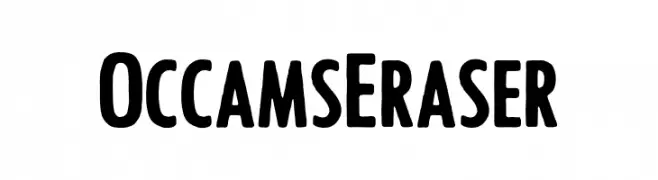
( Fonts by Casady & Greene )
A bold, rounded font with smooth curves and a playful, approachable style.
A display font featuring illustrated faces as glyphs.
Animal illustration font with each character depicted as a unique animal or bird.
A futuristic, geometric font with characters enclosed in circles, offering a modern and technological look.
Minimalist cartoon figures form each glyph in a playful, illustrative style.
A dynamic, striped font with a modern, energetic style.
A decorative font with stylized big cat illustrations for each character.
A modern, geometric sans-serif font with a clean and professional look.
Comic-style pictorial font with business and office scenes.
A pictorial, silhouette-based font where each character is formed by groups of people in action.
A display font made from animal and human silhouettes.
( Fonts by David Rakowski )
A bold, italic font with a dynamic, striped design.
( Fonts by www.typodermicfonts.com - Ray Larabie )
A modern, geometric font with uniform strokes and a futuristic style.
( Fonts by www.typodermicfonts.com - Ray Larabie )
A bold, striped font with a playful and dynamic design.
( Fonts by weknow - Wino S Kadir )
A bold, rounded font with a futuristic and playful style.
( Fonts by bob istheowl http://luc.devroye.org/bobistheowl.html )
A display font made up of bold, graphic street art illustrations.
( Fonts by www.typodermicfonts.com - Ray Larabie )
A bold, italicized font with a dynamic, forward-leaning style.
( Fonts by Barry Bujol - theoriginal19.blogspot.com )
A bold, futuristic font with geometric shapes and smooth curves.
( Fonts by www.typodermicfonts.com - Ray Larabie )
A modern, geometric font with a sleek, futuristic design.
( Fonts by www.typodermicfonts.com - Ray Larabie )
A bold, italic sans-serif font with a modern and dynamic style.
( Fonts by www.typodermicfonts.com - Ray Larabie )
A modern, geometric font with rounded edges and a futuristic style.
( Fonts by www.typodermicfonts.com - Ray Larabie )
A bold, angular font with a futuristic and dynamic style.